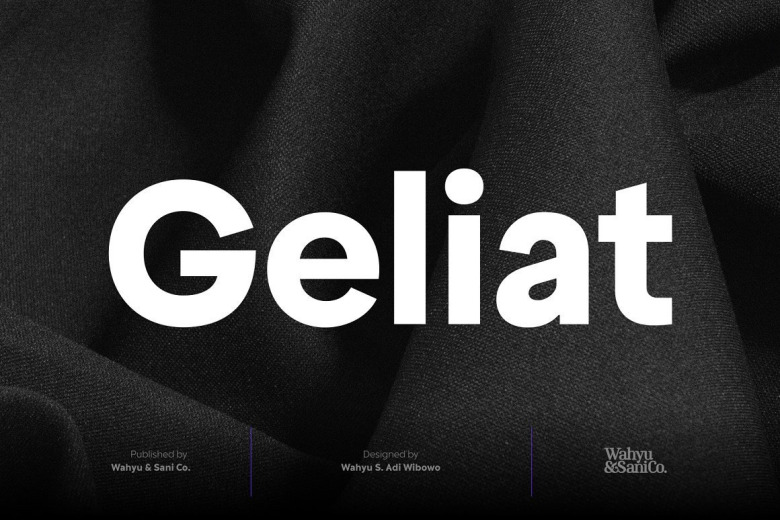
Geliat Font
Geliat Sans Serif Font
Geliat Sans Serif Font was created in a pursue of regularity and conventional geometric sans serif typeface which tend to be easy to receive by it’s reader, broad usage possibility, shown a simple, bold and strong personality. This font family comes in two versions which has some different default glyphs. Geliat family has similar letterform with Creo, while the Alt version has common geometric letterform.
Italic styles of Geliat were designed using semi-rotalic method. The round parts have 5 degrees italic angle, while the vertical strokes were made in 10 italic degrees. The result gives the styles look more circular than most geometric typefaces with the same 10 degrees italic angle.